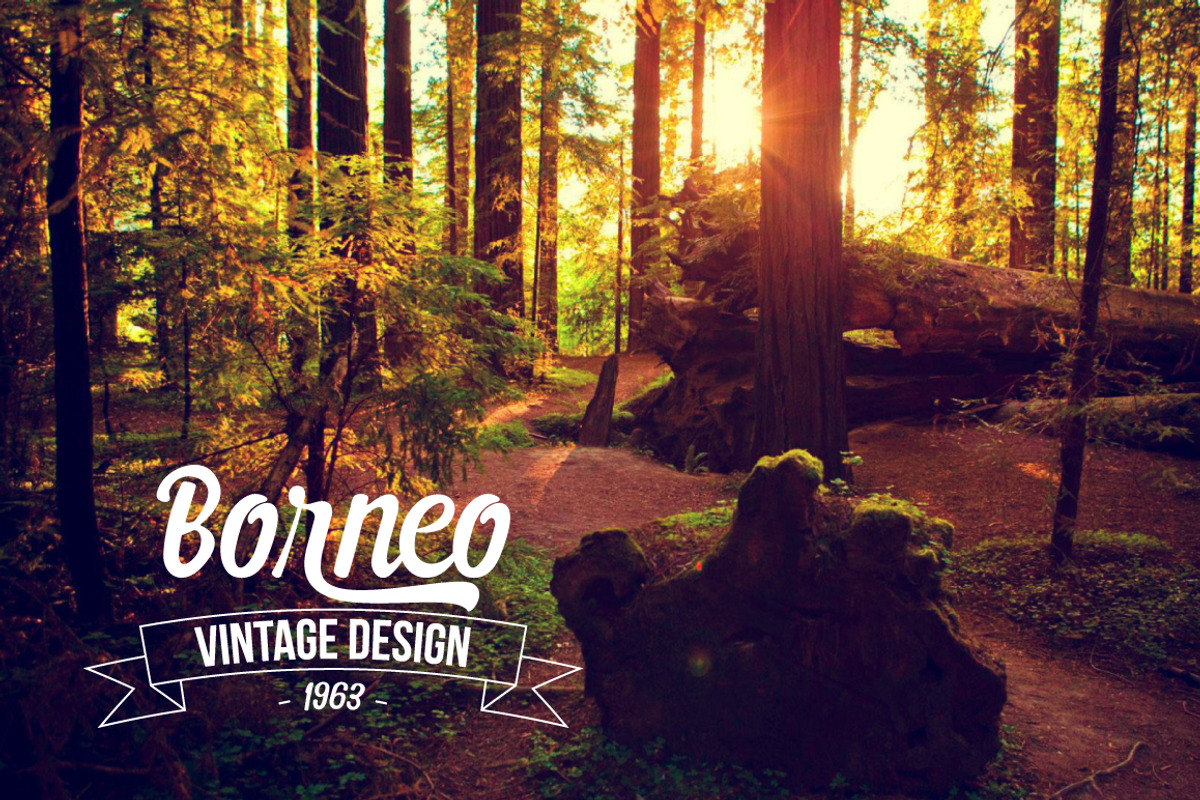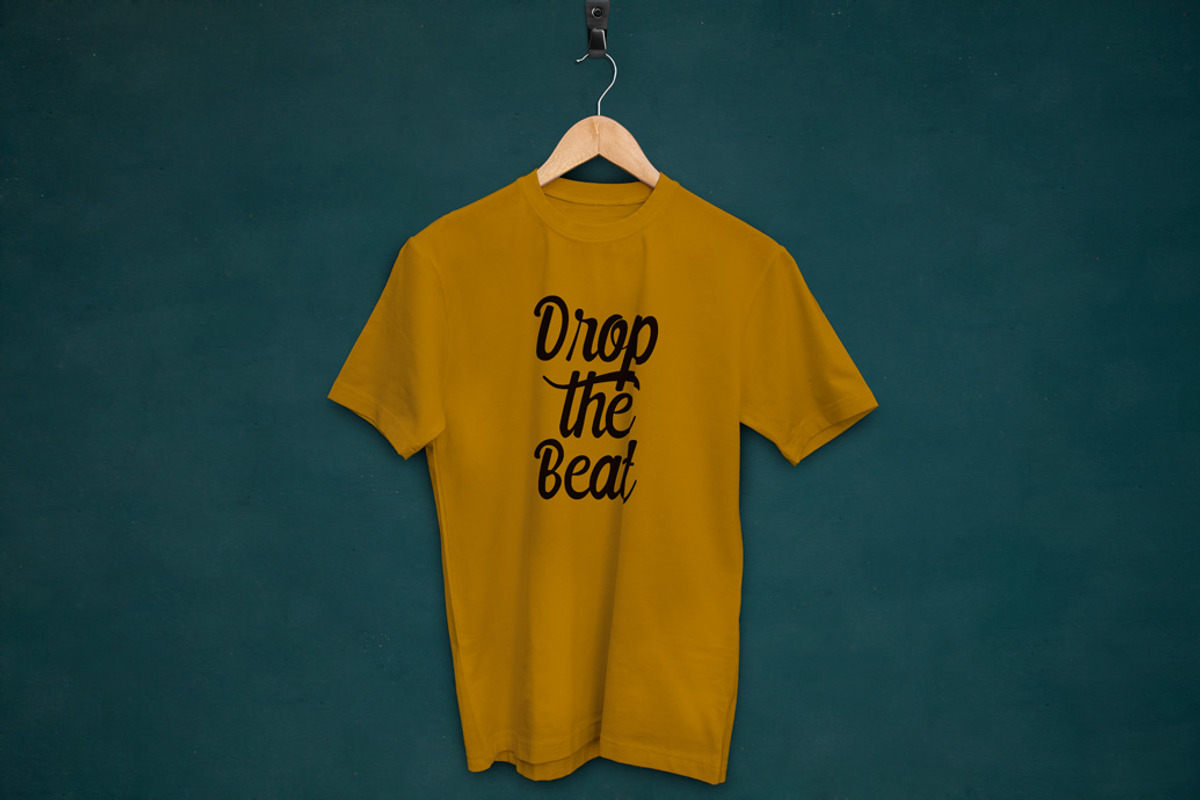
Pumpkino Font
Pumpkino Font by redbox.design is a font selected for branding, posters, packaging, typography.
- The flowing characters are ideal to make an attractive messages, mix and match Pumpkino with a bunch of alternative characters to fit your p
- The alternative characters in this font were divided into several OpenType features such as, Stylistic Alternates, Stylistic Sets, and Ligat
- Pampkino Bold
Why Pumpkino Font is worth a look
Pumpkino Font by redbox.design fits naturally into Branding, posters, packaging, typography.